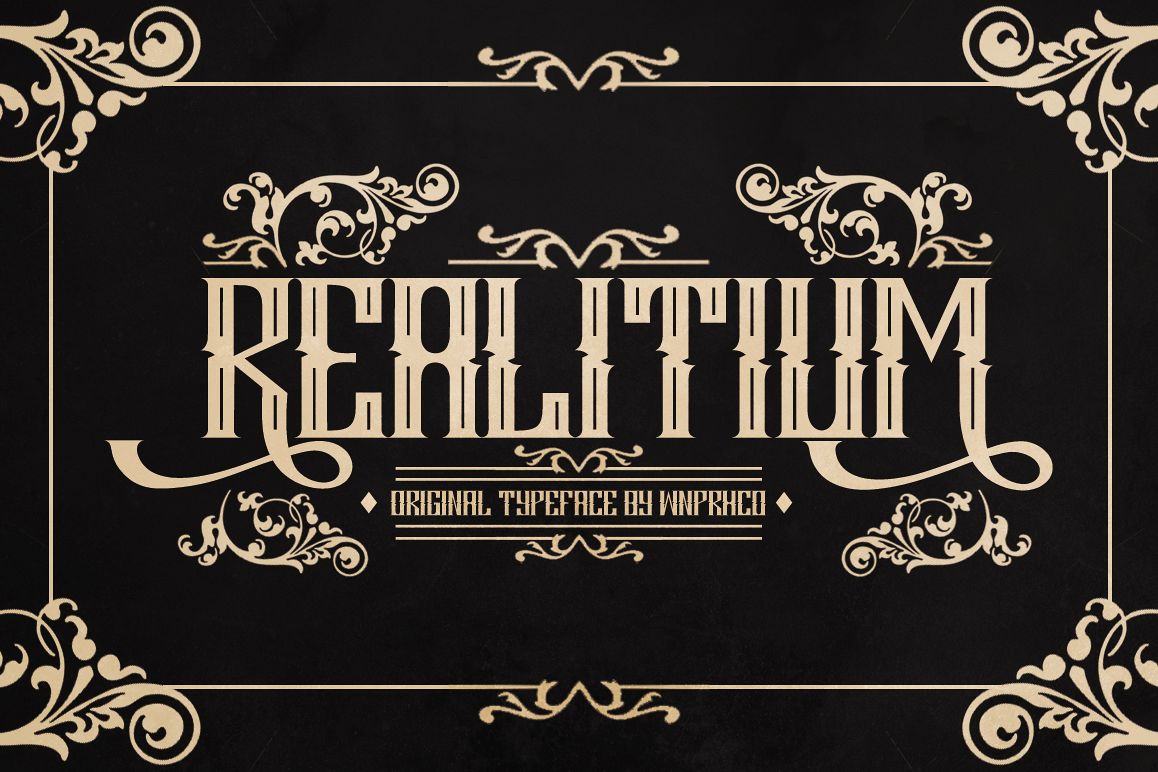
Realitium Font
Realitium is a vintage typeface it’s perfect for latterhead, vintage apparel design, headline, logotype, poster, card, and etc. File Include Realitium Regular.otf Realitium Regular.ttf Realitium Inline.otf Realitium Inline.ttf Features Uppercase Lowercase Numerals & Punctuations Alternative Character Follow me on Instagram to get the latest updates on new typefaces and chances to win new stuff : http://instagram.com/WNPRH Thanks
Realitium Inline.
Realitium.